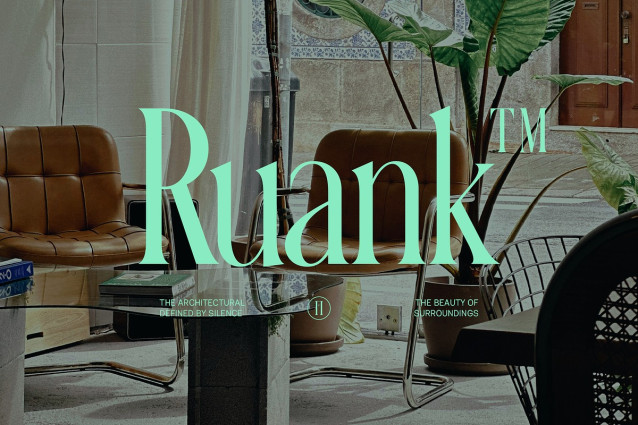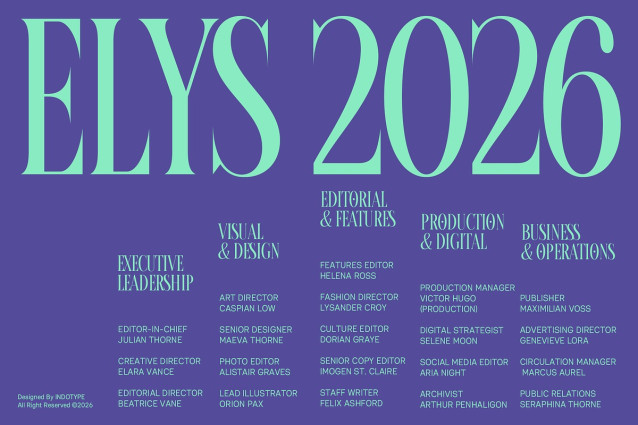
IT Calixon Font
IT Calixon Font is a meticulously crafted serif typeface that walks the delicate line between timeless elegance and shadowy, esoteric intrigue. Its condensed proportions and high-contrast strokes evoke the sophistication of luxury publishing, while its brooding, intellectual undertones channel the atmospheric depth of dark academia. Each letterform is deliberately balanced—refined enough for high-end branding, yet moody enough for scholarly, mysterious applications. Available in both Regular and Italic styles, Calixon brings a dual personality to your designs: polished and luxurious on the surface, with a whisper of something deeper beneath. It’s the perfect choice for projects that demand both sophistication and soul—think literary journals, luxury brands with an edge, academic institutions, or any design seeking to capture the romance of knowledge and the allure of the unknown.